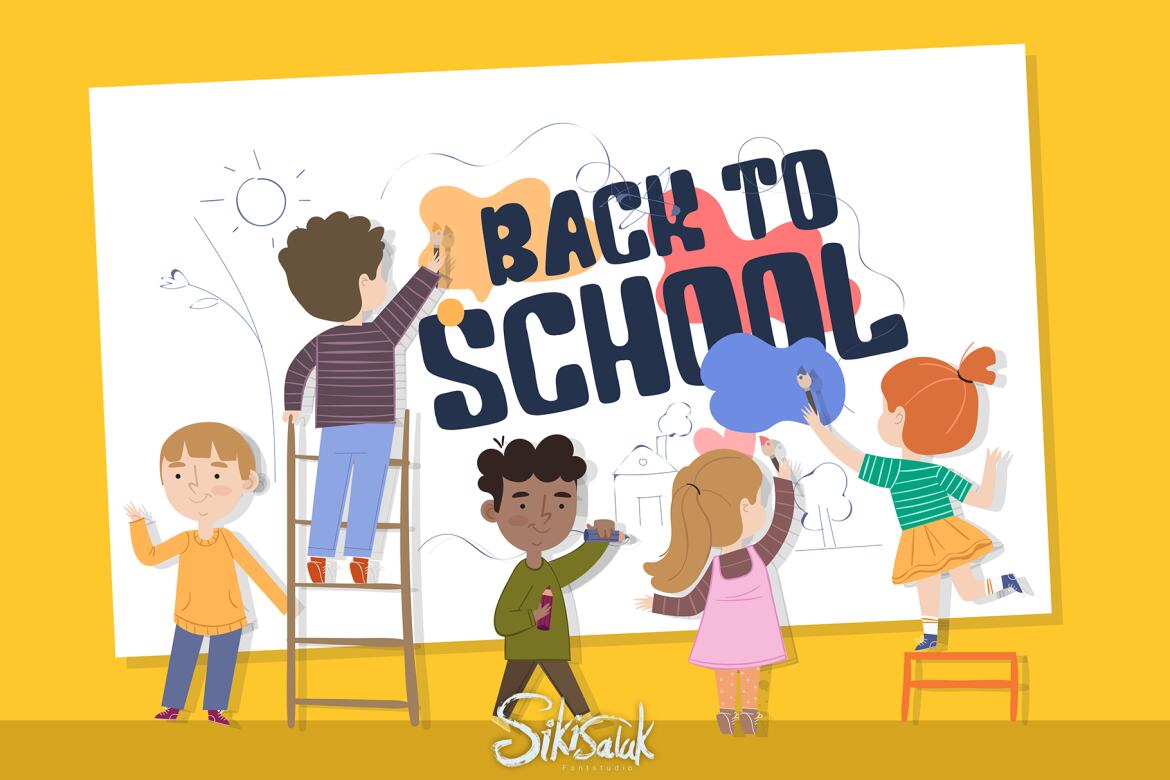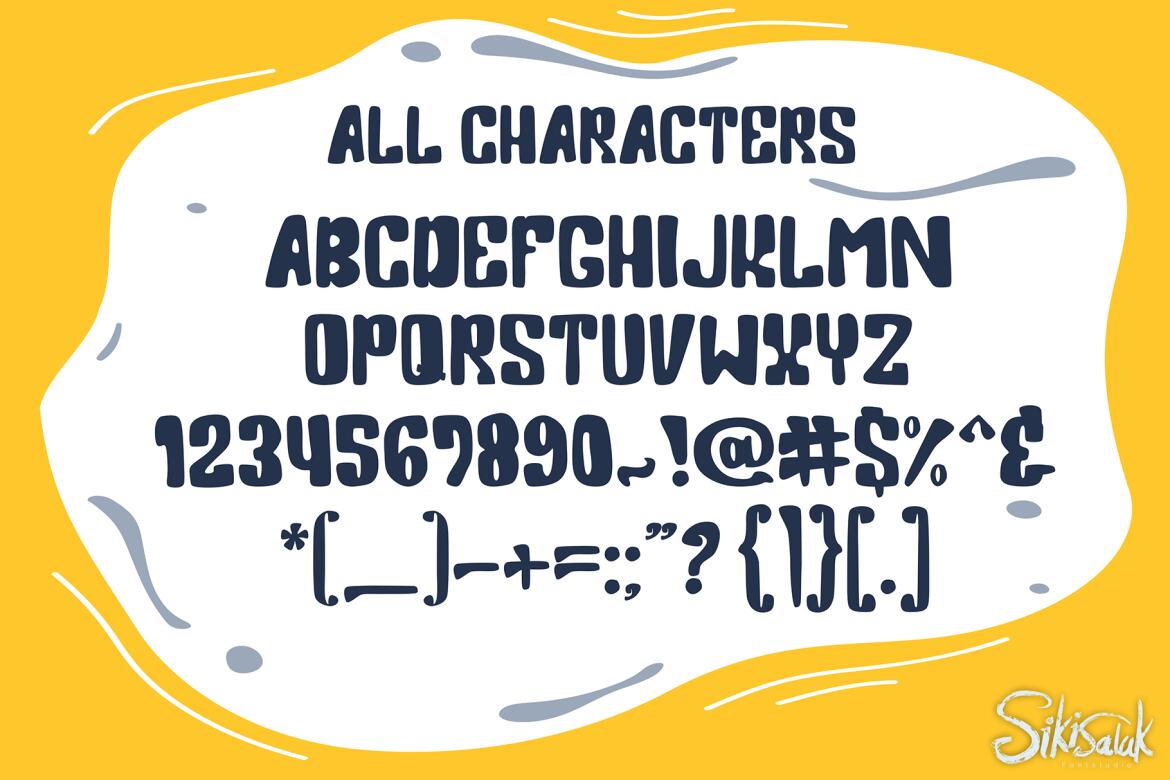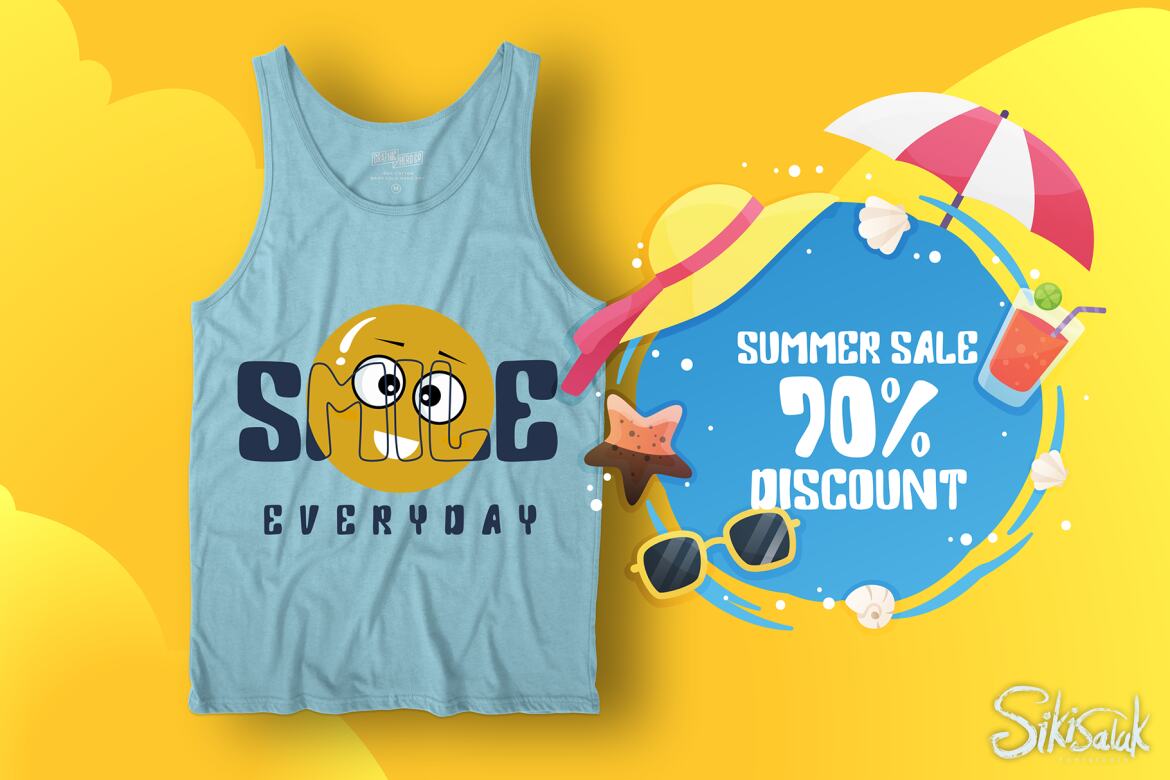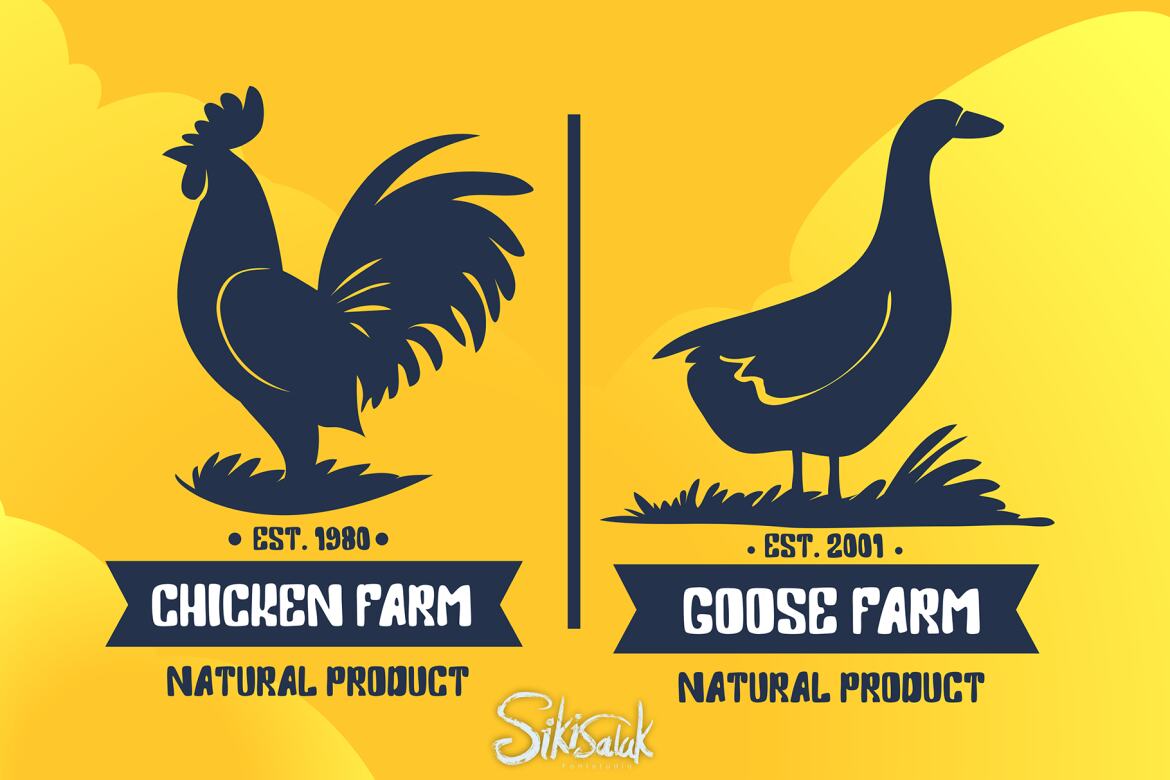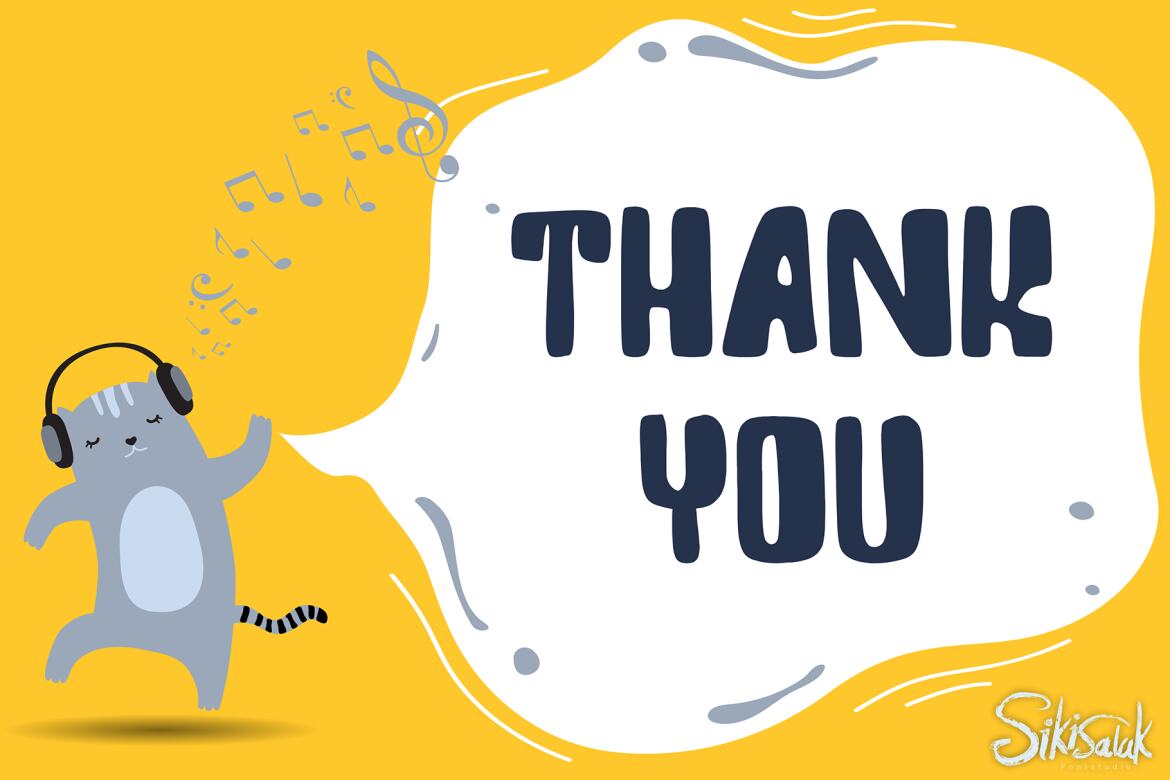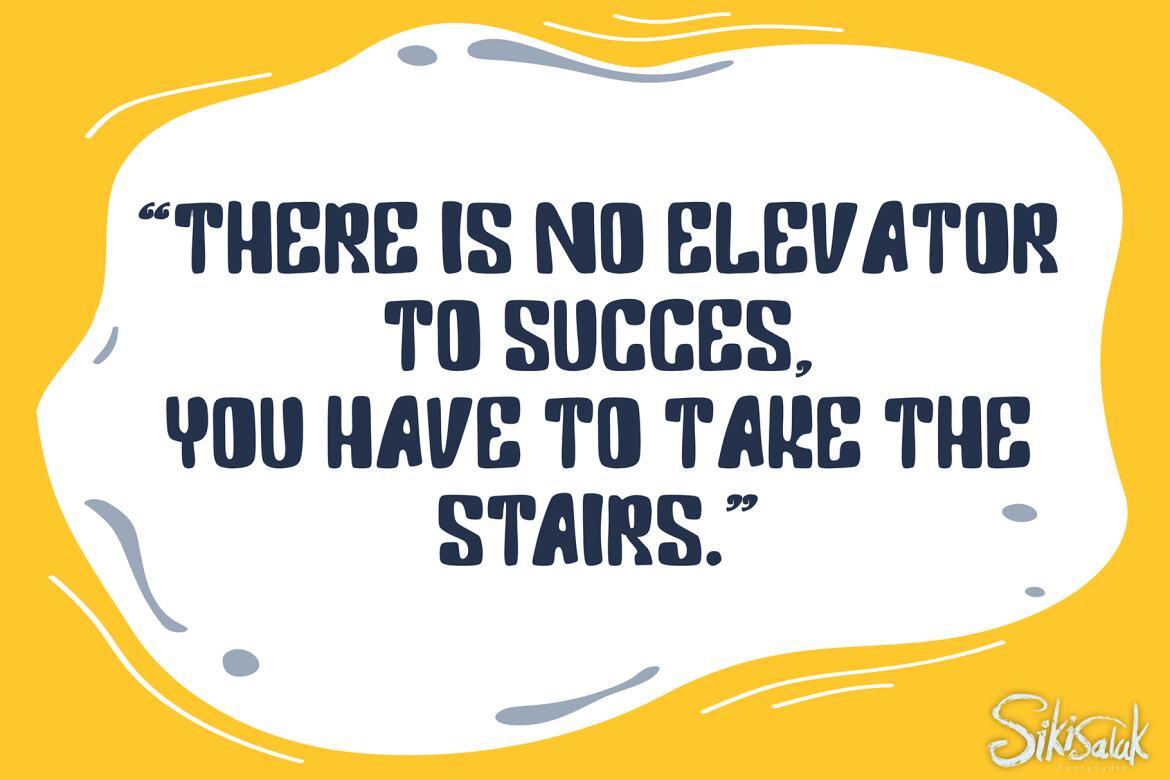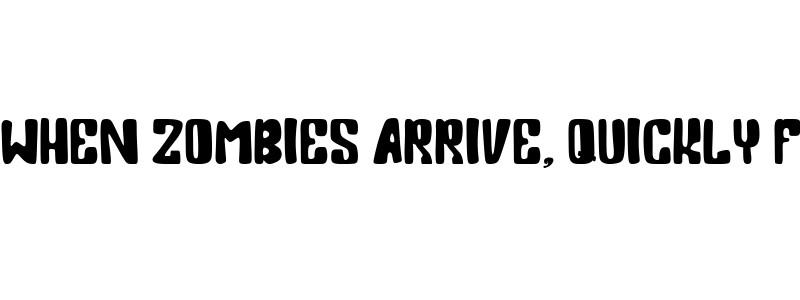
Dance Kitty
Dance Kitty is a cute font, with bold feel. Get inspired by its unique feel, and add a lovely charm to any crafting project! with otf. ttf. woff. woff2. format
• get uppercase character, number and punctuation